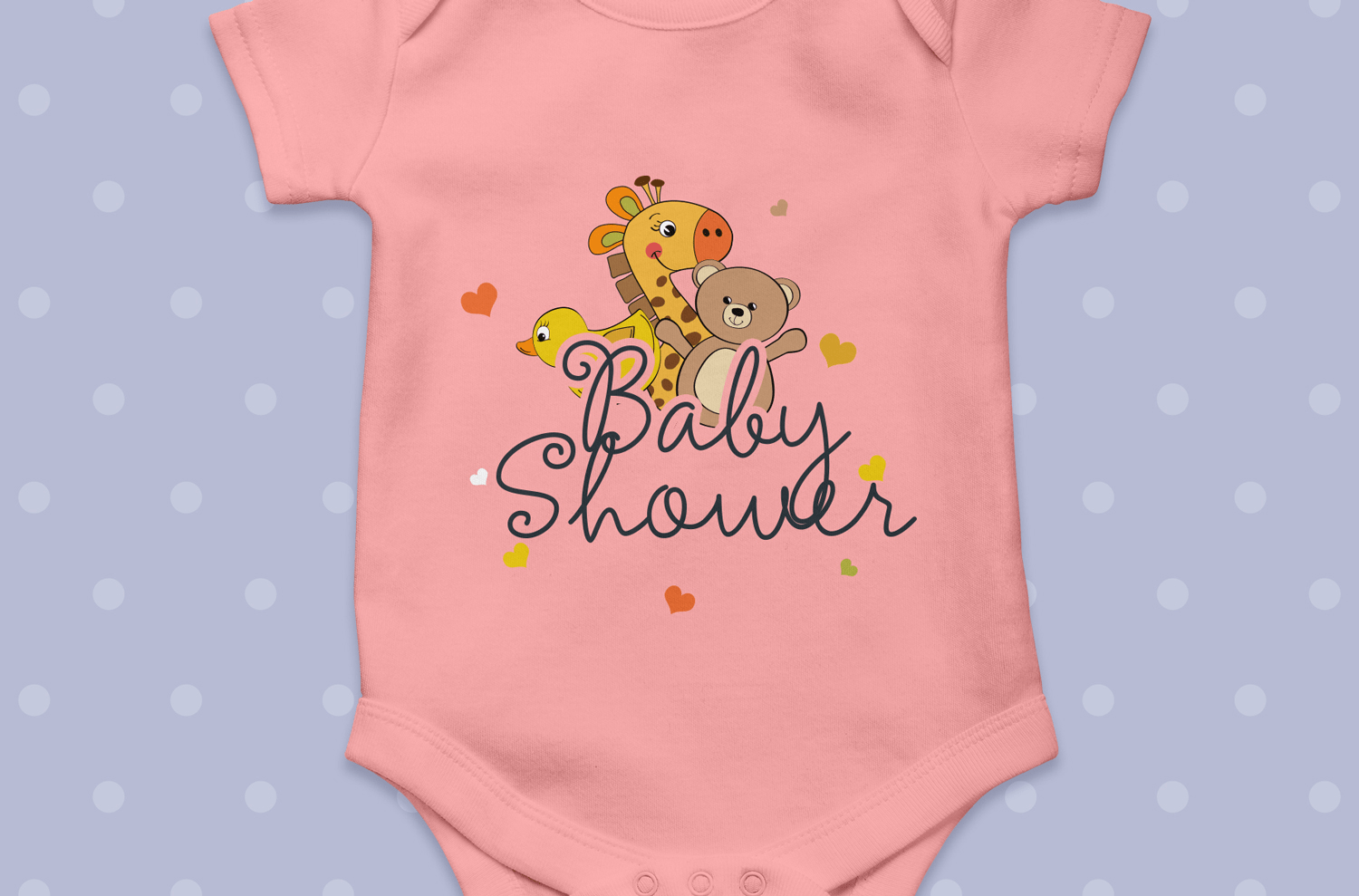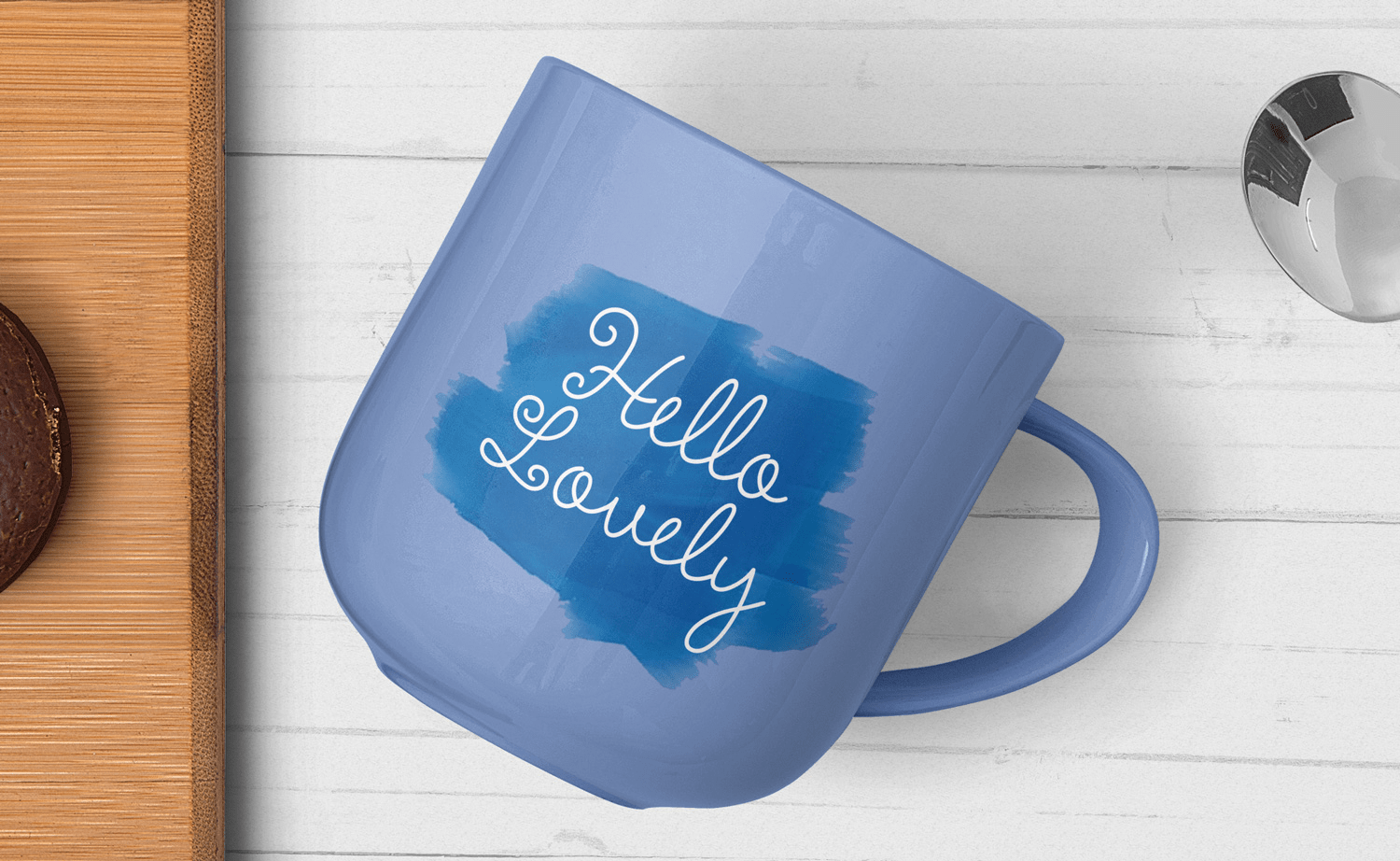
HomeFont BrosHandwrittenAmelie HandwrittenScripts: Casual Amelie FacebookXPinterestWhatsApp 1 of 2 About Amelie This is a connected script font with a trendy flair. You can add little flourishes to the beginning or end letters for a whimsical touch.  DOWNLOAD ON FONT BROSThis font is sold and delivered by Font Bros. Font Canyon may earn a commission if you buy through this link. People also explored Weekly Planner Font Zafrilus Font Vineland Font Angel Rose Font Valentine Gift Font Farmhouse Font Holiday Font Belive Font Nikola Font 279 0 TagsAmelieAmelie Font Previous articleDubbleNext articleAllogist LEAVE A REPLY Cancel reply Comment: Please enter your comment! Name:* Please enter your name here Email:* You have entered an incorrect email address! Please enter your email address here Website: Save my name, email, and website in this browser for the next time I comment. Personal Use Free Oatmeal Personal Use Free Read more about this font Pompom Personal Use Free Read more about this font Monogram Veg Personal Use Free Read more about this font Wintersoul Personal Use Free Read more about this font BLOG How to Cut Any Font on Cricut: Convert a Font to SVG (Free) Turn any font into a clean SVG so it cuts crisp on Cricut - a quick 3-step workflow using a free font-to-SVG tool. Best Fonts for YouTube Videos: Make Your Thumbnails Stand Out Top 7 Google Fonts Alternatives for Faster and Privacy-Friendly Web Design (2025) To increase your work productivity, choose the most readable fonts.